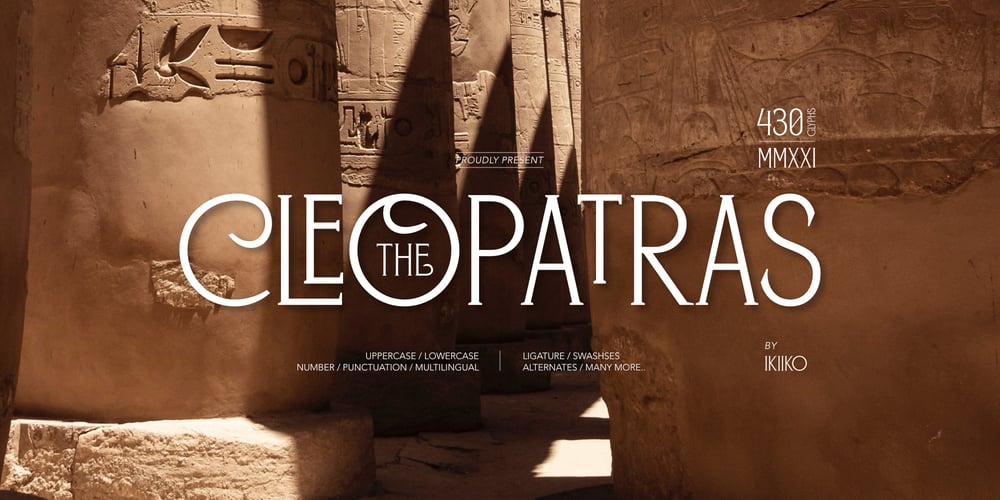
Cleopatras Font Family was designed by Wahyu Eka Prasetya, Andhika Pradana and published by IKIIKOWRK. Cleopatras contains 1 styles and family package options. Introducing The Cleopatras, created by ikiiko.The Cleopatras is a clean serif font with unique characters, having a variety of alternative style sets to choose. You can use various techniques to form different characters. This typeface is perfect for an elegant logo, branding, travel promotion, layout magazine, beauty product, packaging product, quotes, or simply as a stylish text overlay to any background image.What’s included? Uppercase & Lowercase Number & Punctuation Ligatures & Swashses Alternates Set Multilingual Support Get also a good offer & FREEBIE at our site : www.ikiiko.comEnjoy our font and if you have any questions, you can contact us by email : ikiikowrk@gmail.com